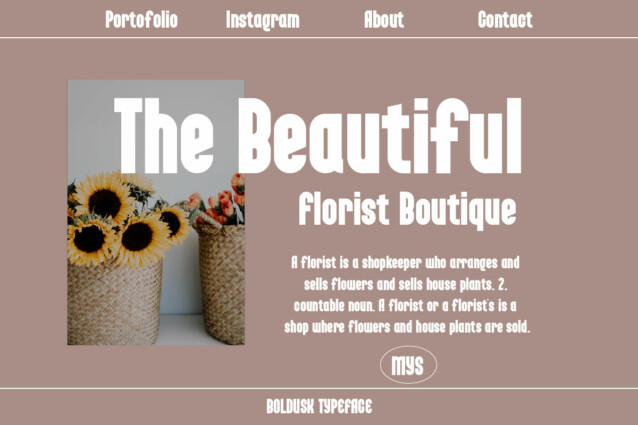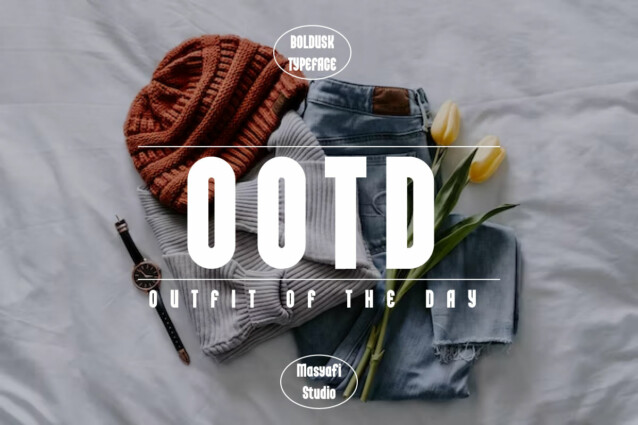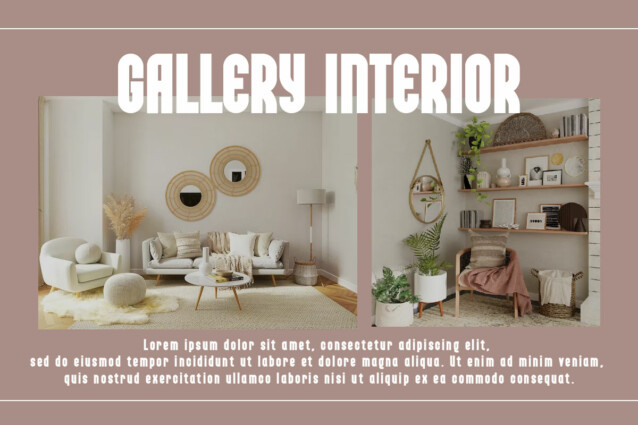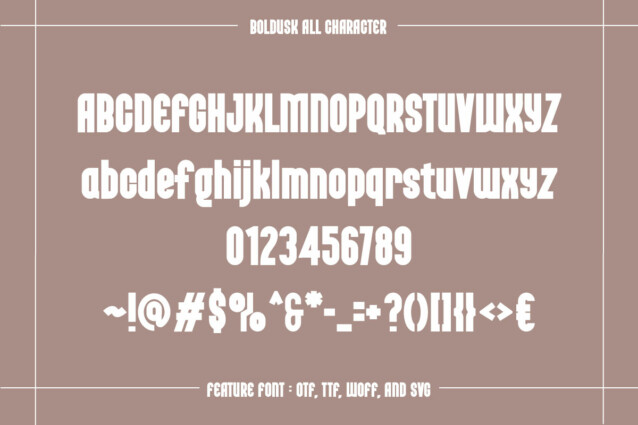
Boldusk Font
Boldusk Font is a beautiful sans serif font that has a broad appeal and can be used for any project. This typeface will enhance your craft with little effort, making your product stand out from the competition. Perfect for your needs in fashion products, fashion design. designing templates, brochures, videos, advertising branding, logos, invitations, layout designs, elegant crafts, outfit, quotes, t-shirt design, magazine, product fashion, tote bag beauty designs and many more.